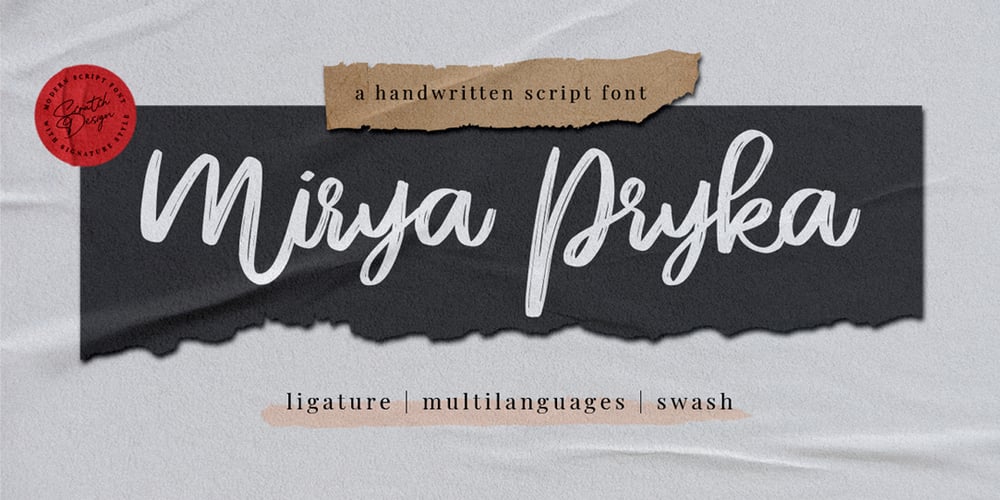
Mirya Pryka
Mirya Pryka font
Mirya Pryka Font Family was designed by Gitayogi Irhandi and published by Scratch Design. Mirya Pryka contains 1 styles and family package options. Mirya Prika is a beautiful brush handwritten script font. It is 100% hand-made. It is made for professional project branding and is suitable for various designs, such as wedding designs, posters, banners, logos, book covers, headings, advertisements, printed products, merchandise, social media, and more. Every letter has a unique and beautiful touch and looks natural like your own handwritten. This font also included many features such as ligatures, swashes and multilingual support.Hope you enjoy our font and we believe this font will give you the best for your design!